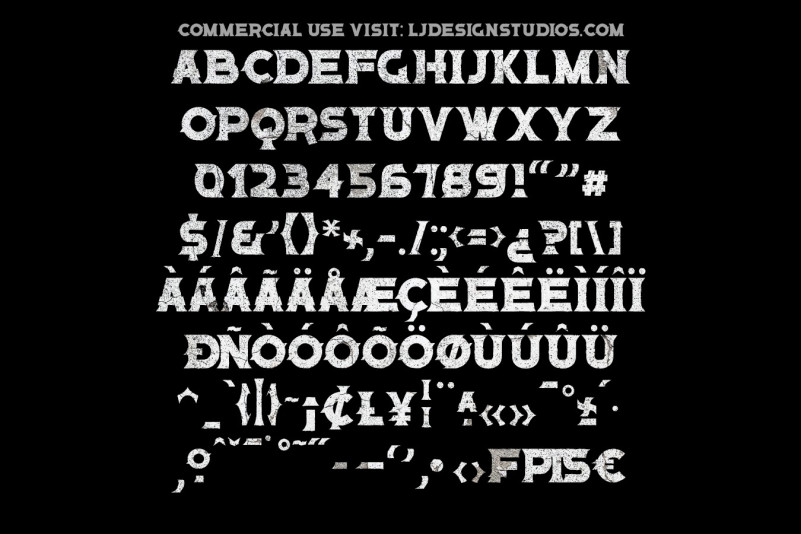
Into Font
Into Display Font is a heavy all-caps display serif font inspired by the samurai of old and sport. A versatile font that works in both large and small sizes, suitable for a wide variety of projects such as a display for headings, logos, branding, magazine, photography, card, product packaging, product mockup, mugs, posters, editorials, art deco, any type of advertising purpose.